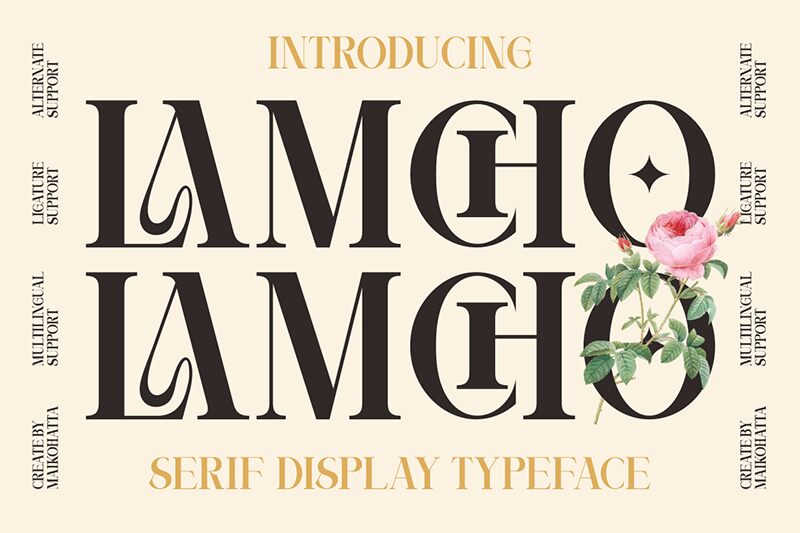
Lamcho font family by Gilang Ternadho is a free font family for personal use. Lamcho packs the elements of modernity, elegance, and sophistication in its look while maintaining the simplicity that comes with serif shapes. This font family is decorative at the extremes and professional at the basics, making it enjoyable and practical for designers to use and experiment with.
Create trendy and captivating designs using Lamcho on packaging, social media slogans, event posters, book covers, and much more. Lamcho will also look great on branding and visual identity purposes such as logo and stationery designs. With 2 different font styles to use, the creative possibilities are endless.